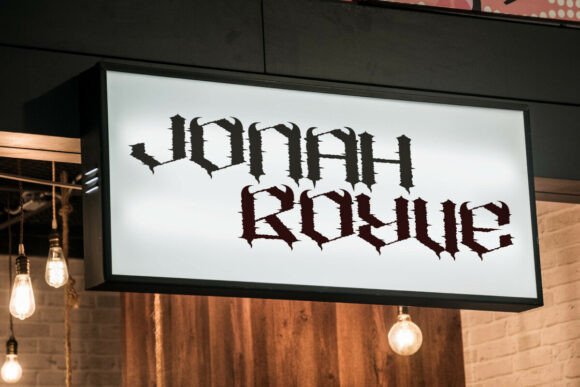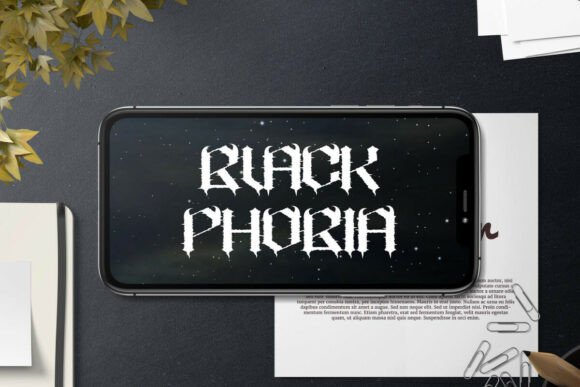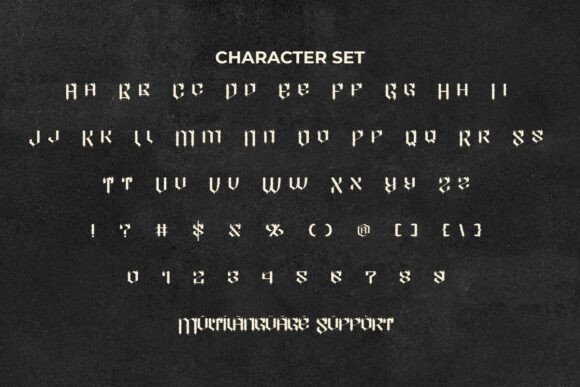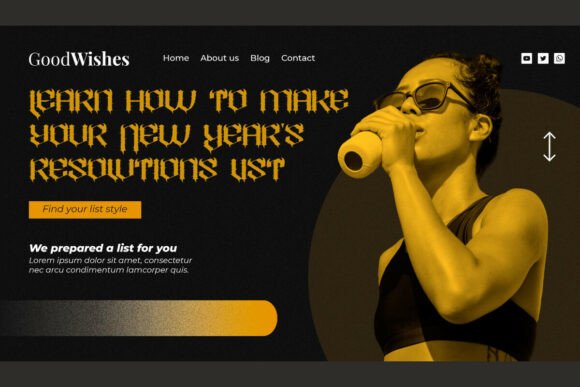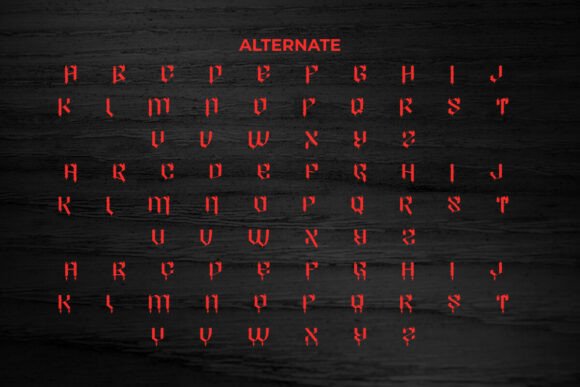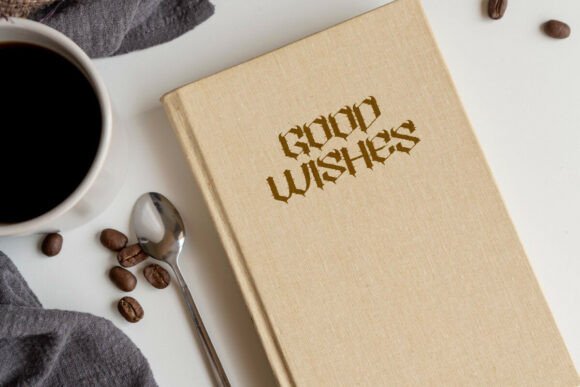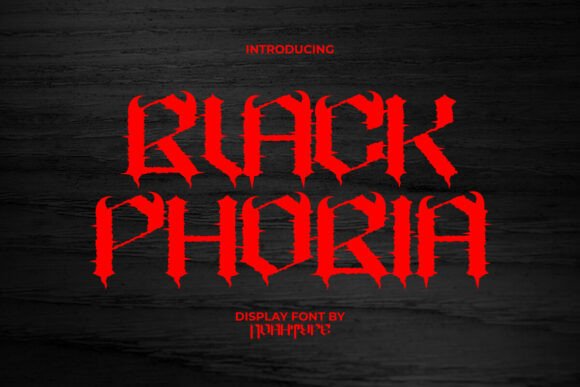
Unleash the Horror: Discover the Black Phobia Font
Are you a designer or craft looking for a font that embodies the essence of pure horror and dread? Look no further than the Black Phobia Font. This terrifyingly effective typeface is designed to send shivers down the spine, featuring razor-sharp, spiky serifs and a heavily fragmented structure that makes every word look like a menacing, dark emblem.
The Anatomy of Fear: Black Phobia’s Unique Characteristics
The Black Phobia font is characterized by its extreme contrast and jagged, dagger-like terminals, giving it a visceral and aggressive presence. The razor-sharp serifs and fragmented structure create a sense of tension and unease, making it the perfect choice for designers who want to convey a message of danger and intensity. Whether you’re working on a horror movie title, a metal music album cover, or a video game logo, this font demands to be seen.
A Font that Cuts Deep: The Design Elements of Black Phobia
One of the standout features of the Black Phobia font is its unique design elements. The spiky serifs and jagged terminals give the font a menacing, almost feral quality, while the heavily fragmented structure adds to the sense of unease and tension. The font’s extreme contrast creates a sense of drama and emphasis, making it perfect for headlines, titles, and other display text.
Unleash Your Creativity: The Uses of Black Phobia Font
The Black Phobia font is an indispensable tool for designers in the horror and metal music genres. Its bold, sinister, and intensely memorable design makes it perfect for a variety of applications, including:
- Movie titles and posters
- Book covers and jackets
- Video game logos and branding
- Band merchandise and album covers
- Any design that requires a bold, gothic-horror aesthetic
Easy to Use: PUA Encoding and Accessibility
The Black Phobia font comes with PUA (Private Use Area) encoding, which means that all special characters and decorative elements are easily accessible without additional software. This makes it easy for designers to get creative with the font, using its unique features to add an extra layer of depth and interest to their designs.
Why Choose Black Phobia Font?
So why choose the Black Phobia font over other display fonts on the market? Here are just a few reasons:
- Unique design: The Black Phobia font features a truly unique design that sets it apart from other fonts on the market.
- Versatility: The font is versatile and can be used in a variety of applications, from horror movie titles to metal music album covers.
- Easy to use: The font comes with PUA encoding, making it easy to access and use its special characters and decorative elements.
- High-impact: The font’s bold, sinister design is guaranteed to make an impact and grab attention.
If you’re looking for a font that embodies the essence of pure horror and dread, look no further than the Black Phobia Font. Its unique design elements, versatility, and ease of use make it an indispensable tool for designers in the horror and metal music genres. With its bold, sinister, and intensely memorable design, this font is guaranteed to make an impact and leave a lasting impression on your audience.